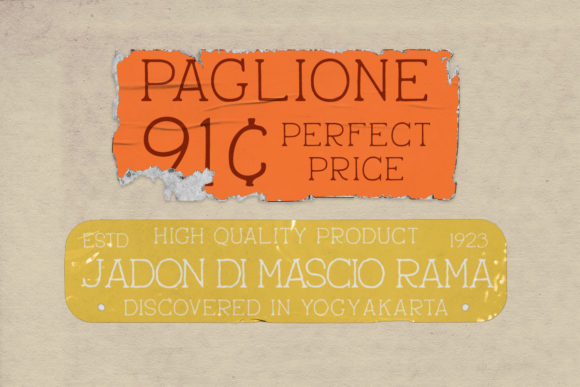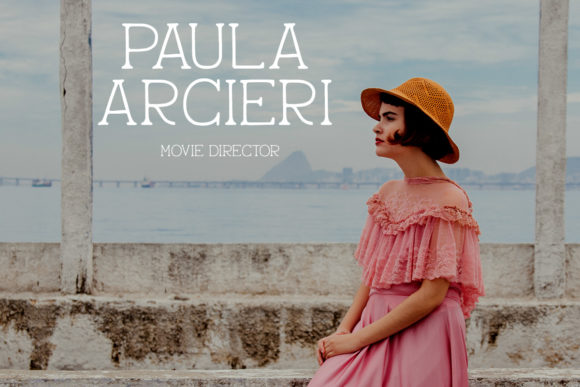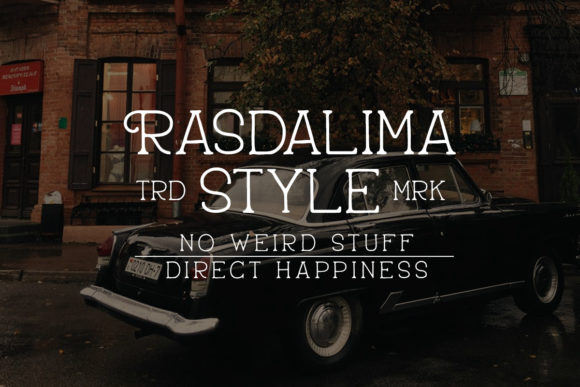
Introduction to Pantaleone Font
Have you ever been working on a creative project and just can’t seem to find the perfect font to bring it all together? You’ve scoured through countless design resources, but nothing seems quite right. That’s where Pantaleone Font comes in – a simple yet stylish display font that’s guaranteed to elevate your design to the next level.
With its vintage vibe and versatility, Pantaleone Font is the perfect addition to any branding, product packaging, or invitation design. Its transparent background makes it easy to layer and combine with other design elements, while its high quality ensures that it will look great on any medium – from t-shirts to posters.
Key Features of Pantaleone Font
- High-quality design resource for creative projects, ideal for digital art and design.
- Comes in a single weight, making it perfect for projects where a clean and simple design is required.
- Designed with high resolution in mind, ensuring that the font remains crisp and clear even at large sizes.
Honest Review: Pantaleone Font
I recently stumbled upon the Pantaleone Font, a high-quality design resource that caught my attention. As a designer, I’m always on the lookout for unique fonts that can elevate my creative projects. The Pantaleone Font did not disappoint.
- ✨ The Pantaleone Font has a beautiful, elegant design that’s perfect for titles and headings.
- ✨ The font supports a transparent background, which is ideal for creating eye-catching graphics and designs.
- ⚠️ The Pantaleone Font is only available in a few weights, which may limit its versatility in certain design projects.
- ⚠️ The font may not be suitable for very small text sizes, as it can become difficult to read.
Overall, I’m impressed with the Pantaleone Font. Its unique design and high quality make it a valuable addition to any designer’s toolkit. While it may have some limitations, I believe it’s a great resource for designers working on creative projects, and I would definitely recommend it to others.
Tips for Getting the Most Out of the Pantaleone Font
To get the most out of the Pantaleone Font, experiment with different font sizes, colors, and styles to create visually appealing designs. You can also pair it with other design elements to add texture and depth to your project.
The Pantaleone Font is commonly used in various creative projects, including branding, advertising, and digital marketing. Its high-quality design and transparent background make it an ideal choice for designers and non-designers alike.